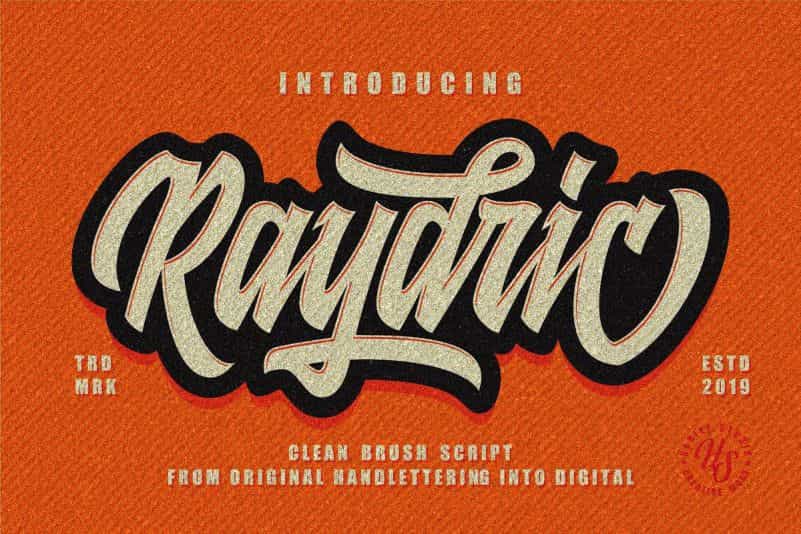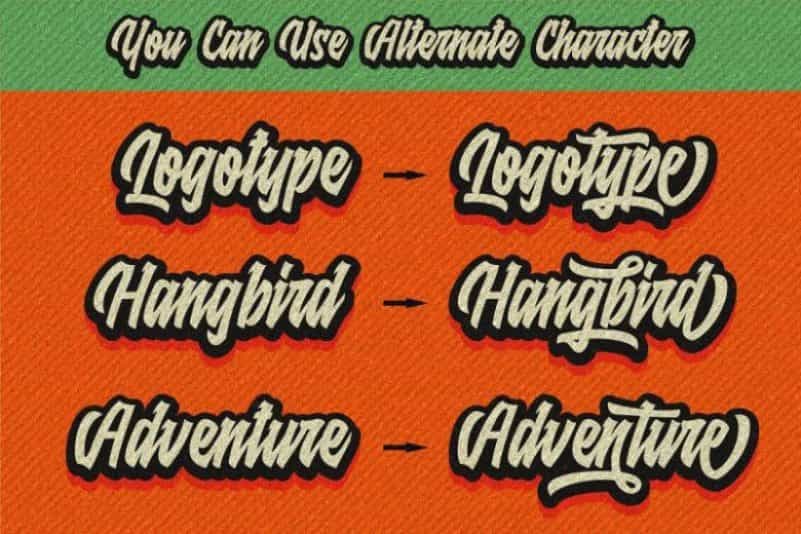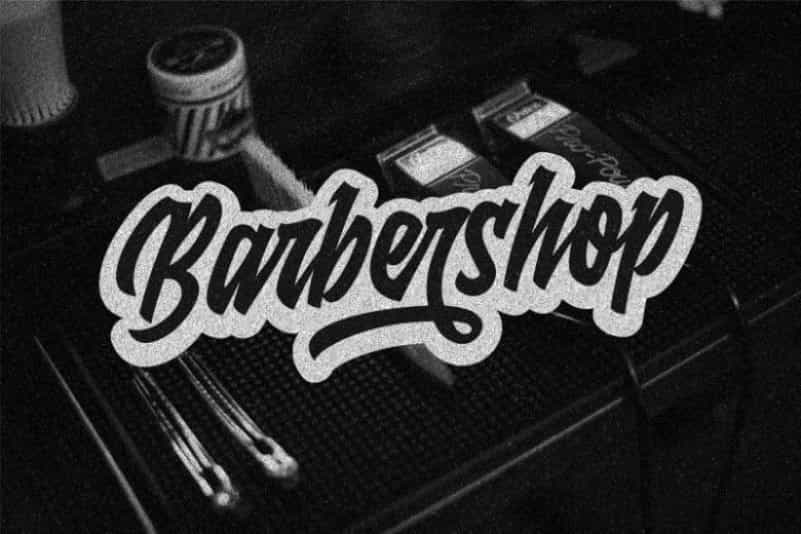
Raydric This design is inspired by the modern clothing style and streetwear with the addition of Hand Lettering style. I am made with touch personality every single curve. I really do hope this can inspire you from your work. and a very bouncy baseline It has a perfectly paired complimentary marker font.